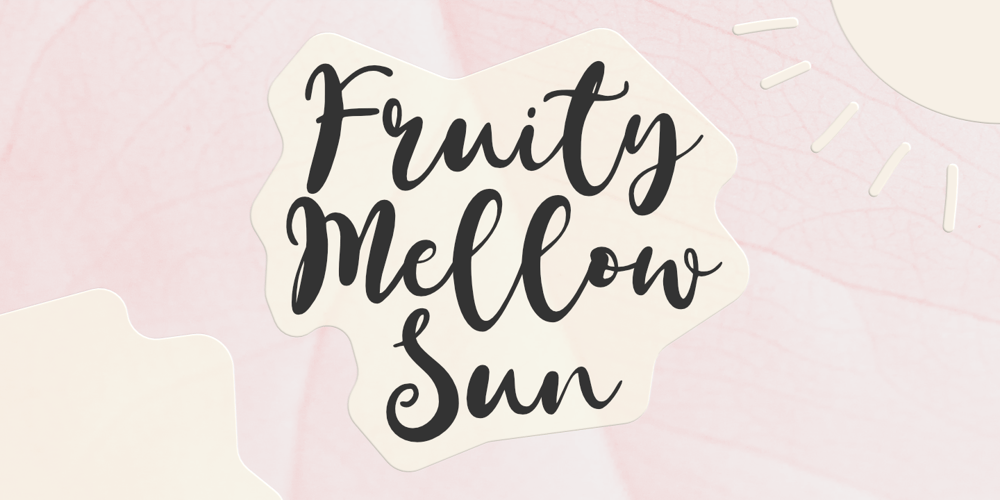
Fruity Mellow Sun Font Family was designed by Aldy Sidik and published by Epiclinez. Fruity Mellow Sun contains 1 styles and family package options. Fruity Mellow Sun is a lovely script font featuring charming, playful characters that seem to dance along the baseline. Add this font to your most creative ideas, and notice how it makes them stand out!. This script font is supporting Multi-Languages, which include: Afrikaans Albanian Catalan Danish Dutch English Estonian Finnish French German Italian Norwegian Portuguese Spanish Swedish Zulu.So what’s included: Basic Latin A-Z & a-z. Numbers, symbols, punctuations and ligatures. Multilingual Support. Accented Characters : ÀÁÂÃÄÅÆÇÈÉÊËÌÍÎÏÑÒÓÔÕÖØŒŠÙÚÛÜŸÝŽàáâãäåæçèéêëìíîïñòóôõöøœšùúûüýÿžß Thank You.